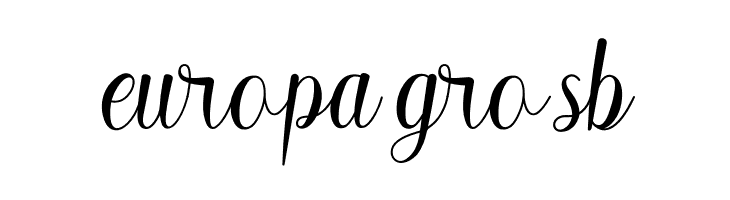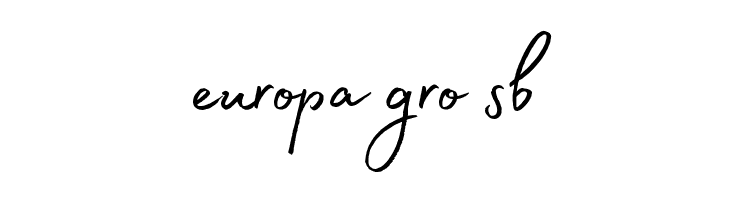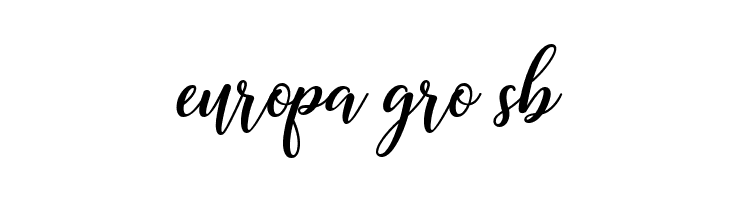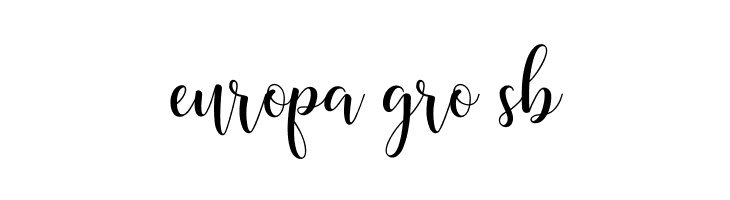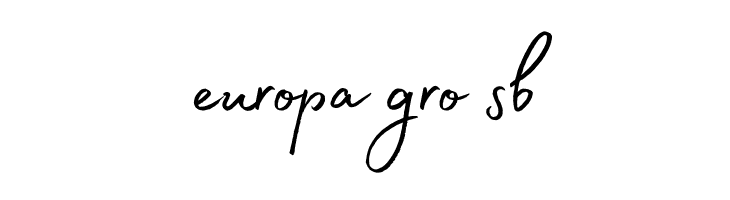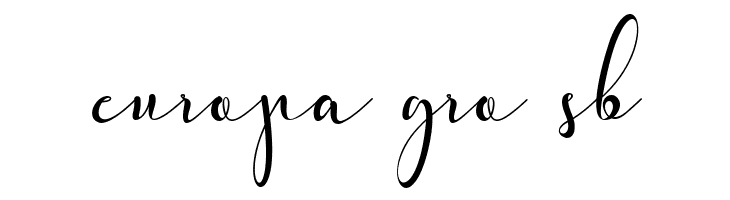
An elegant, flowing script font with smooth, cursive letterforms.
A sophisticated script font with elegant, flowing cursive strokes.
An elegant script font with flowing lines and sophisticated style.
A graceful script font with flowing, elegant lines and artistic flourishes.
An elegant and sophisticated script font with flowing, interconnected letters.
A flowing, handwritten script font with elegant, connected strokes.
A graceful script font with fluid, elegant strokes and a handwritten feel.
A graceful and elegant script font with flowing cursive elements.
A graceful cursive font with elegant, flowing characters.